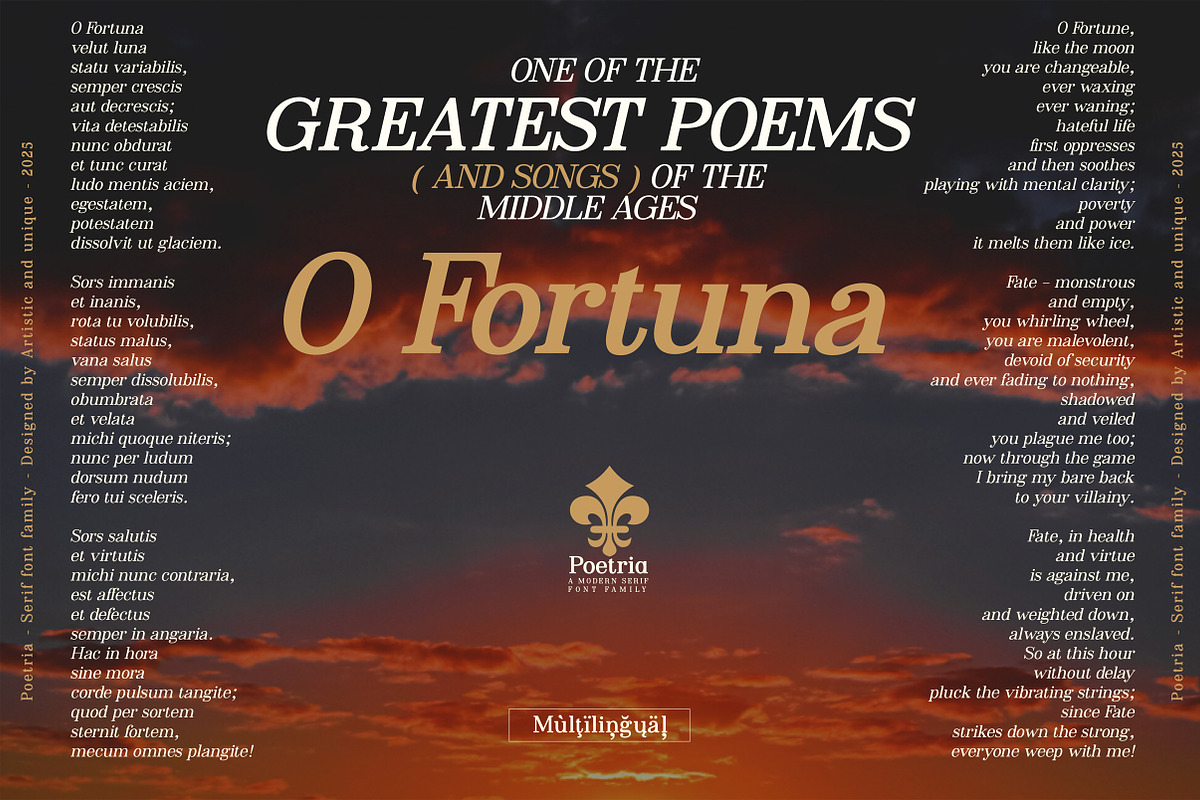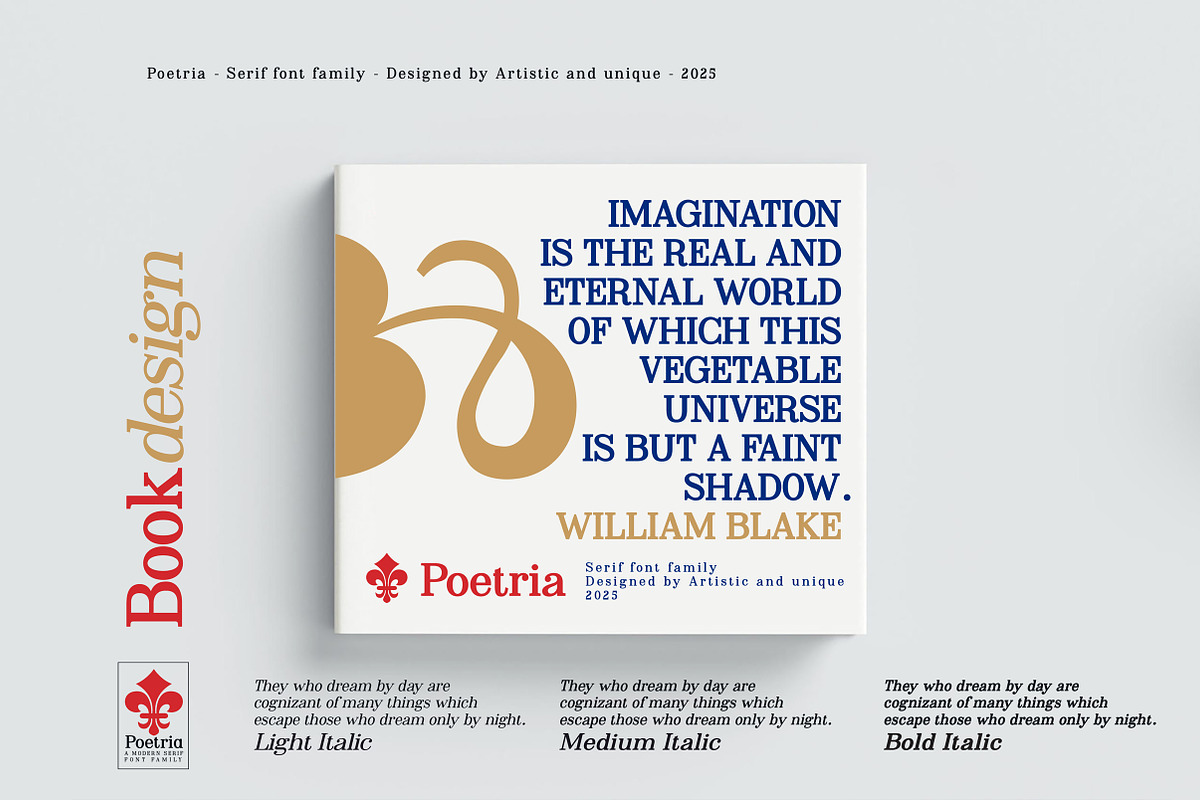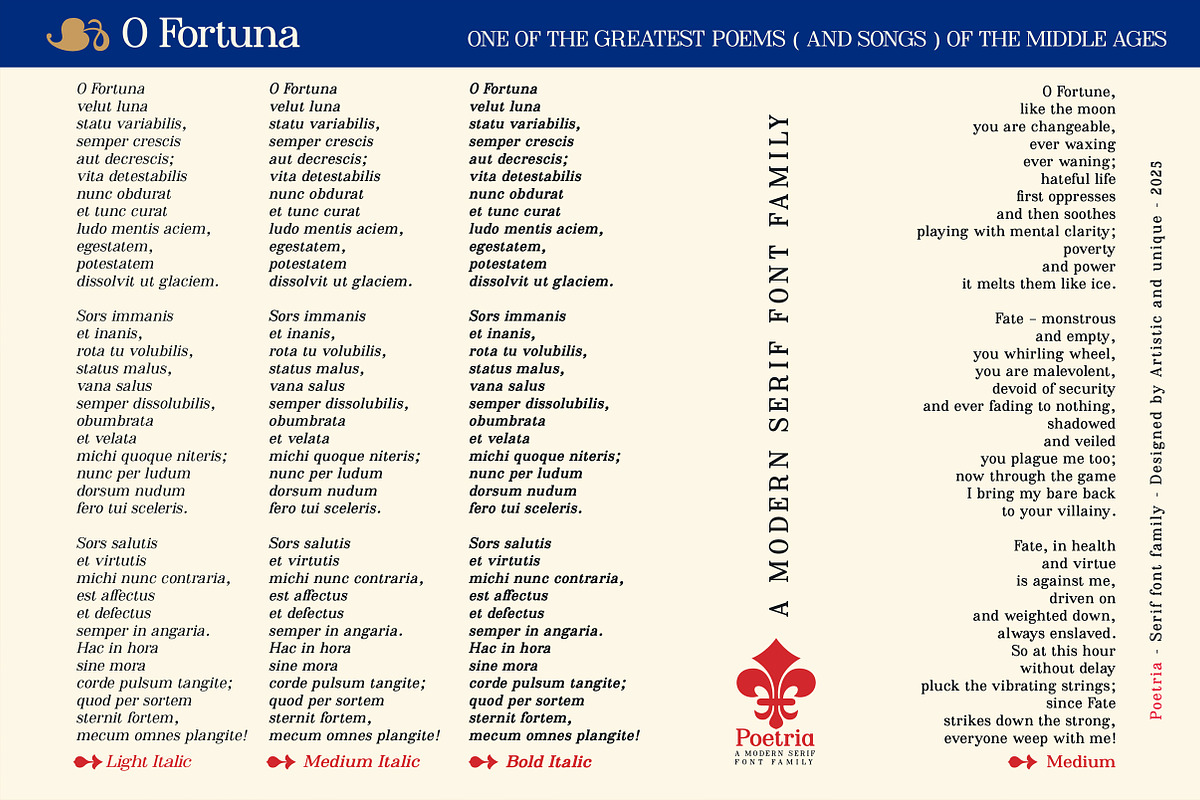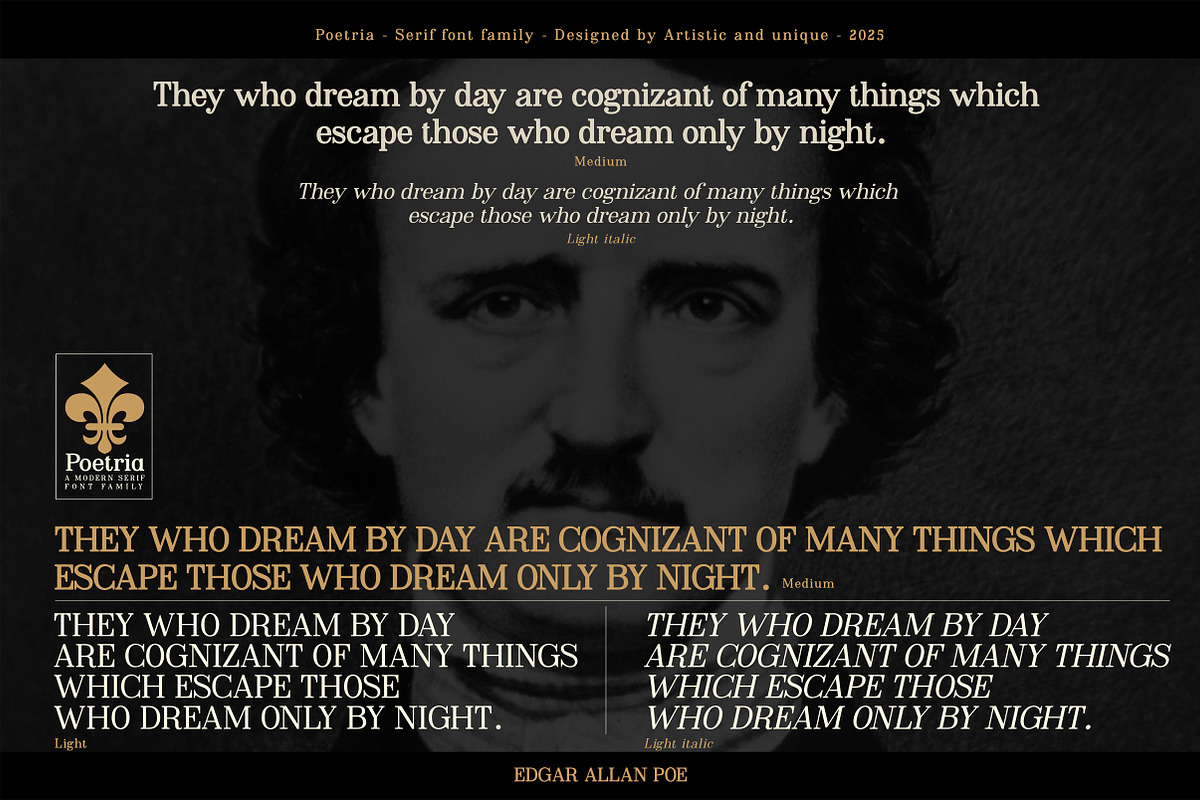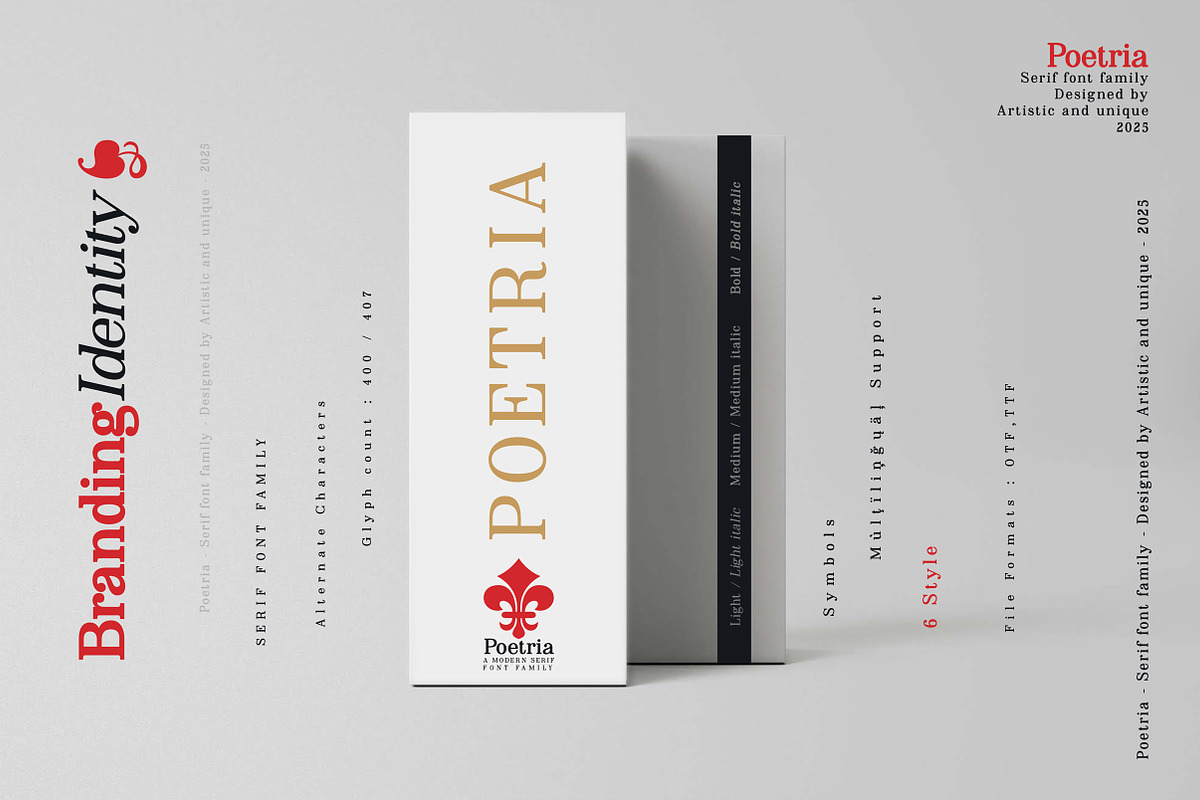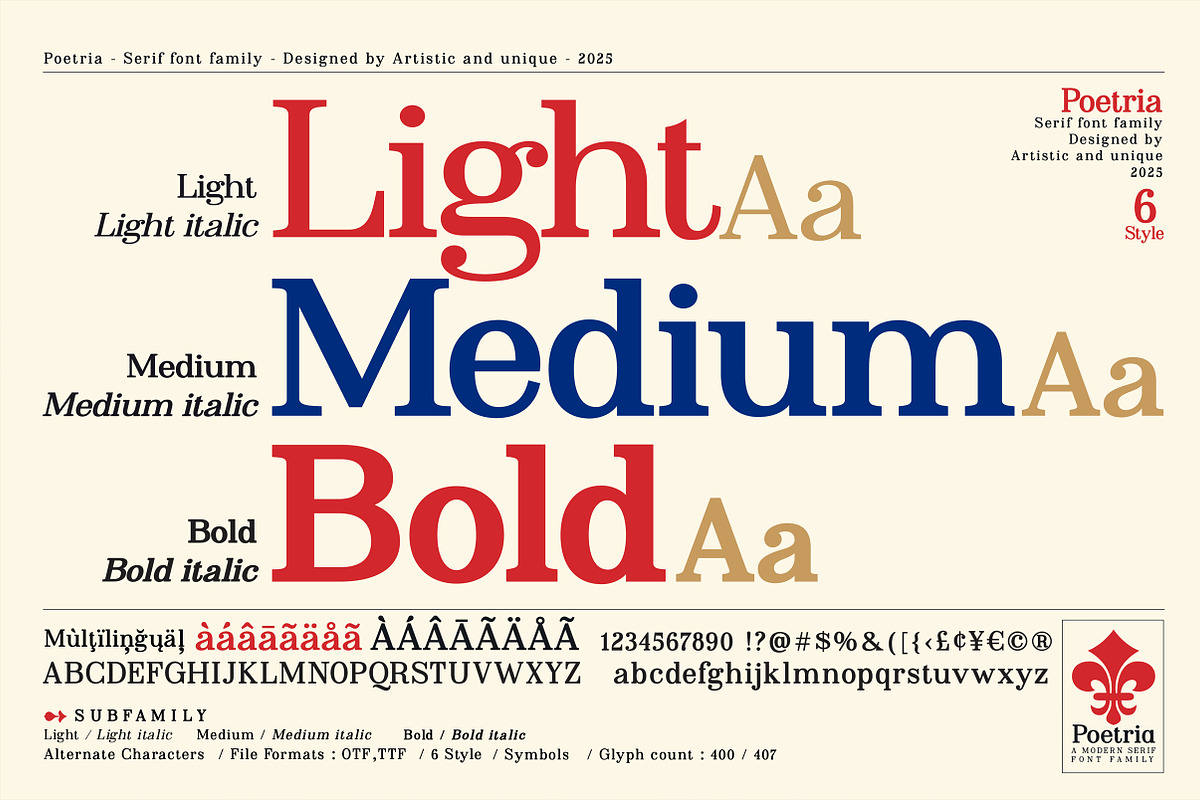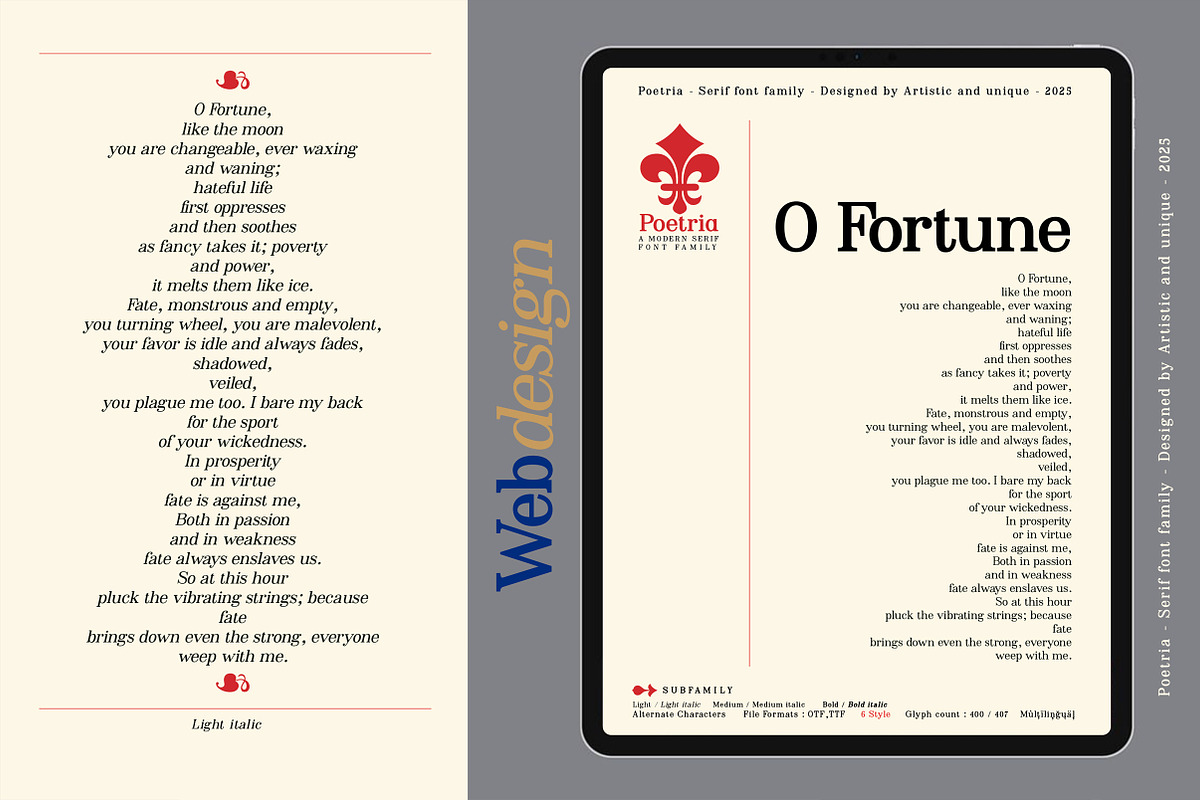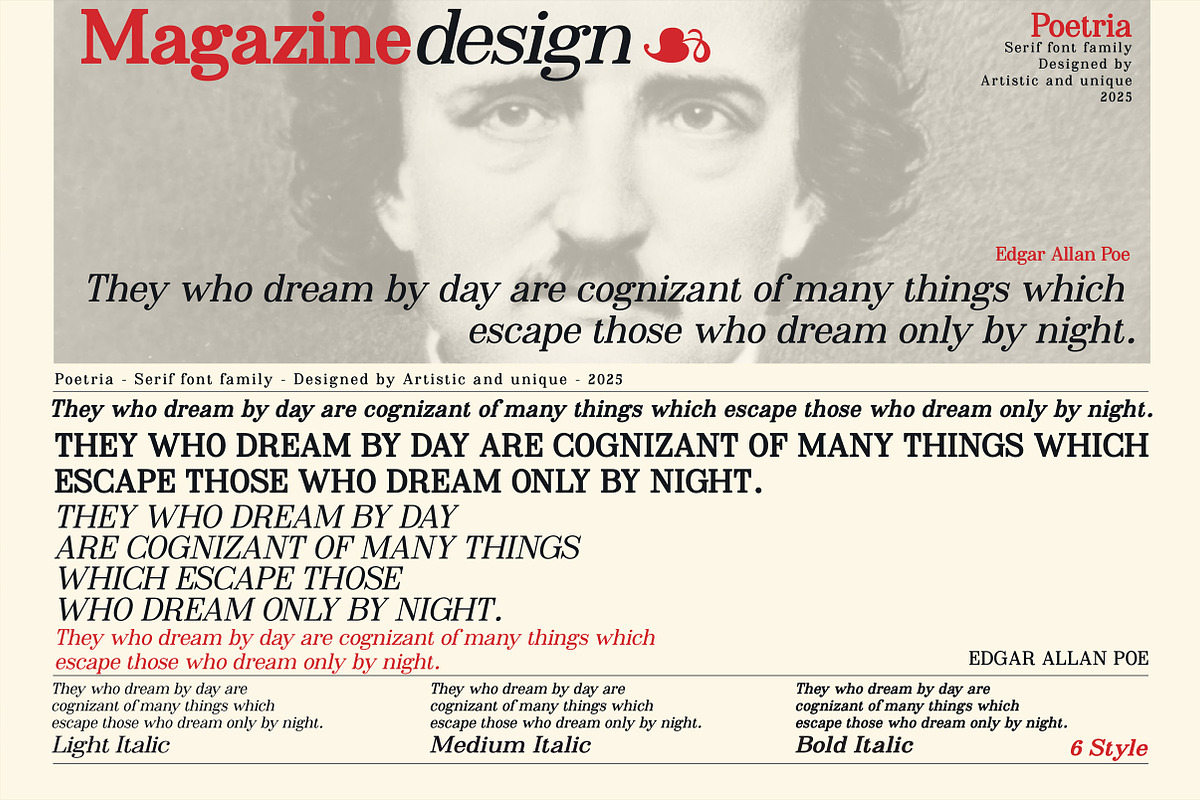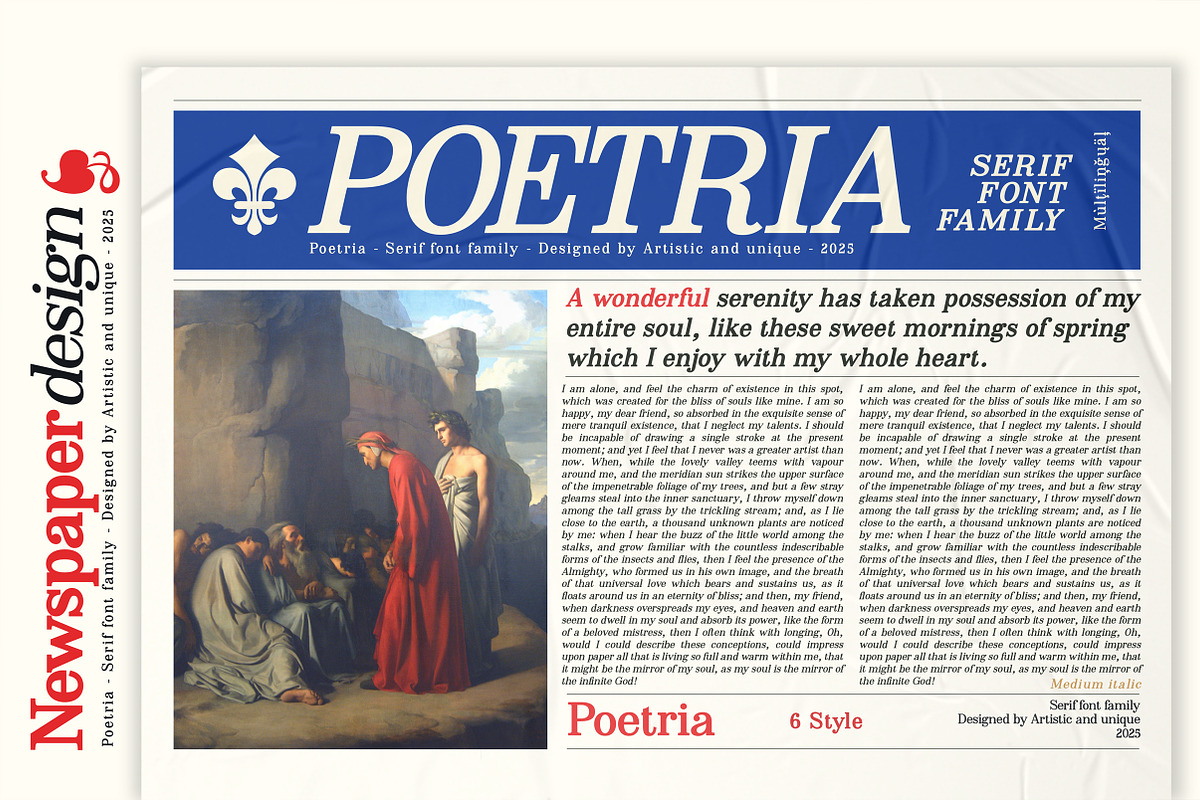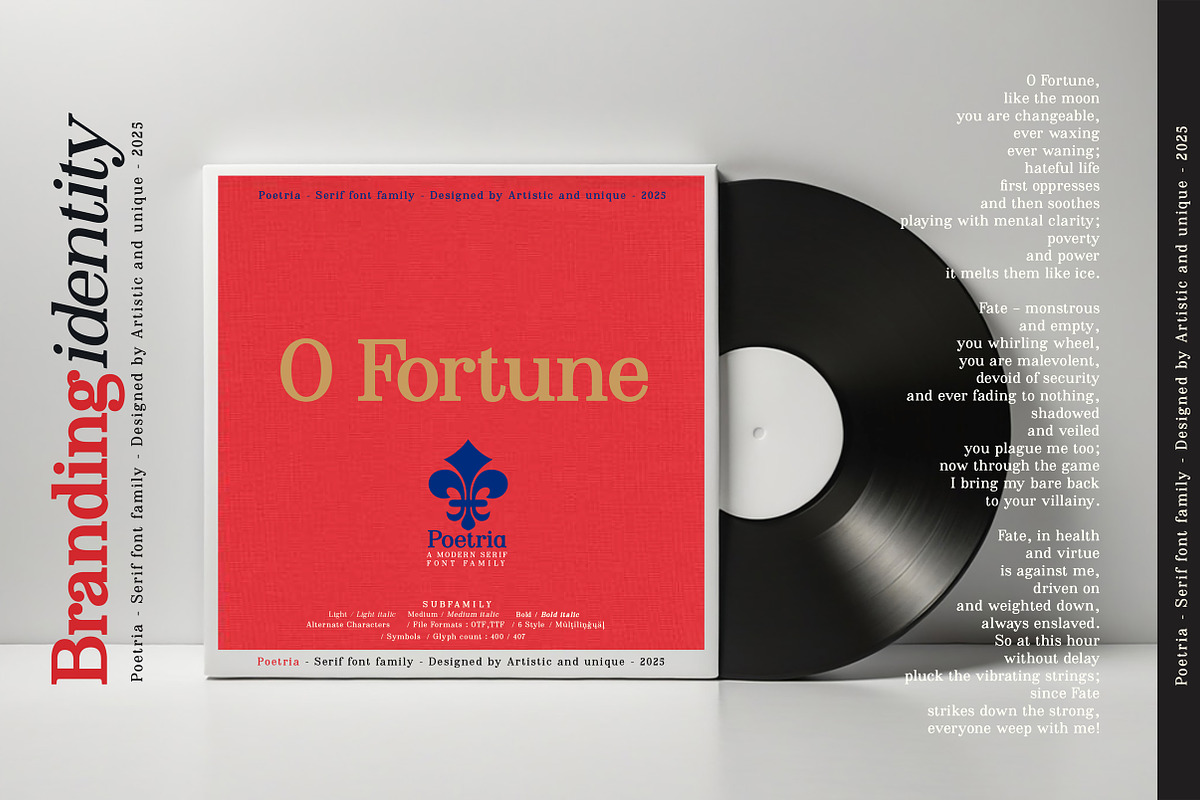
Poetria - Serif Font Family
Poetria - Serif Font Family - 6 Styles - Multilingual Support.
With six distinct styles and multilingual options, the Poetria serif font family is ideal for those seeking elegance in their projects.
Enhance your projects with the Poetria font, which offers high readability and a striking appearance in both print and digital formats, from elegant headlines and body text to brand identity, luxury packaging and logo design, publishing, and visual design.
This font's flexibility shines through in a wide range of applications, from editorial work and magazines to brand and web design. By seamlessly integrating standard characters, you can achieve clean text.
The nostalgic appeal and aesthetics of the serif font blend seamlessly with contemporary design, making it a valuable resource in today's modern world.
- 6 distinct styles
- Rich glyph options
- Perfect for branding and editorial design
- Suitable for web and logo design.